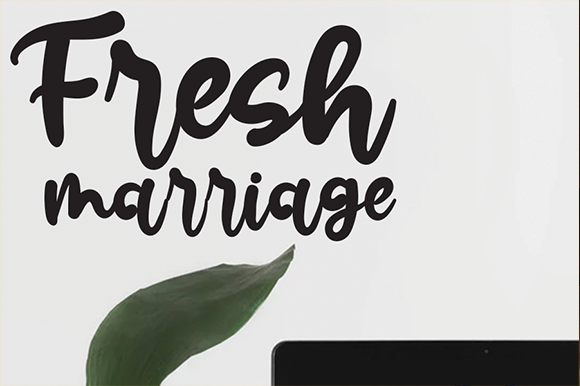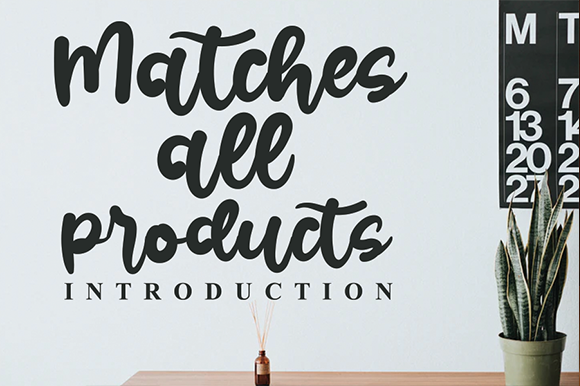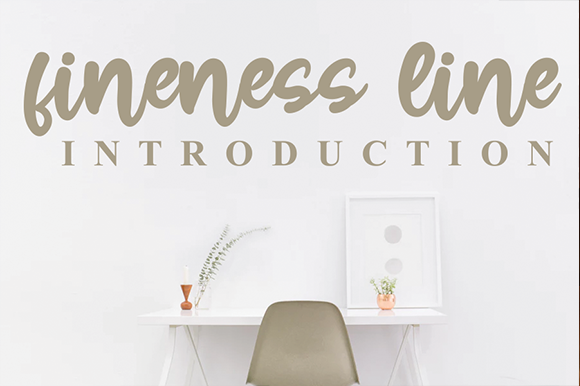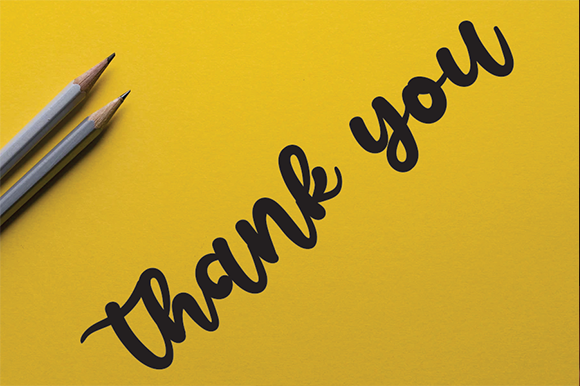
Unleash Your Creativity with Beauty Brush Font
Have you ever been working on a DIY project and felt like something was missing? Maybe you were crafting a handmade card for a loved one, or creating a custom invitation for a special event. Whatever the case, there’s one thing that can take your project from ordinary to extraordinary – a unique and authentic handwritten font.
Enter Beauty Brush Font, a stunning pairing of a brush pen and pencil that brings a touch of warmth and personality to any design. This gorgeous font is perfect for adding a human touch to your DIY projects, making them feel more personal and special. Whether you’re a seasoned designer or a crafty beginner, Beauty Brush Font is a valuable tool in your creative arsenal.
With its unique, hand-drawn feel, Beauty Brush Font is sure to elevate your designs and make them stand out from the crowd. So why settle for a generic, mass-produced font when you can add a touch of personality to your work with Beauty Brush Font?
Key Features of Beauty Brush Font
- Unique Characteristics: The Beauty Brush Font features a delicate, hand-painted design with soft brushstrokes, giving it a whimsical and feminine touch.
Beauty Brush Font Review
Overall, I have mixed feelings about the Beauty Brush Font. While it has some interesting aspects, it falls short in other areas. ✨
The font’s unique design and hand-painted feel are its strongest points. It’s perfect for adding a touch of whimsy and personality to your design projects. The font’s brush-like strokes and subtle imperfections make it stand out from more traditional fonts.
- ✨ Unique and hand-painted feel
- ✨ Perfect for adding personality and whimsy to designs
- ✨ Works well for creative and artistic projects
However, the font has some limitations that prevent it from being a top choice for all design projects. ⚠️
- ⚠️ May be difficult to read in certain contexts (e.g. body text)
- ⚠️ Can be overwhelming or busy in large quantities
- ⚠️ May not be suitable for formal or corporate designs
Overall, I think the Beauty Brush Font is a solid choice for designers who want to add a creative touch to their projects. While it may not be perfect for every situation, it’s a great option for those looking for a unique and eye-catching font.
Tips for Getting the Most Out of Beauty Brush Font
For a more elegant look, pair Beauty Brush Font with a light-colored background.
To add texture, use a subtle texture overlay or add a watercolor effect.
Beauty Brush Font is ideal for:
Baby shower invitations and decorations
Fine art prints and posters
Luxury branding and marketing materials
Alternatives to Beauty Brush Font
Playfair Display is a luxurious, elegant serif font perfect for high-end branding and advertising. It features intricate details and swashes, making it ideal for creating a sense of sophistication and refinement. Use it for formal invitations, luxury product labels, or high-end packaging.
Playfair Display is more formal and elegant than Beauty Brush Font, which has a more playful and whimsical feel. While both fonts have a touch of luxury, Playfair Display is more suited for traditional and classic designs.
Great Vibes is a modern, elegant script font ideal for creating a sense of warmth and approachability. It features a flowing, handwritten feel that makes it perfect for branding, advertising, and packaging. Use it for casual, yet sophisticated designs.
Great Vibes is more casual and relaxed than Beauty Brush Font, which has a more dramatic and elegant feel. While both fonts have a touch of luxury, Great Vibes is more suited for modern and trendy designs.